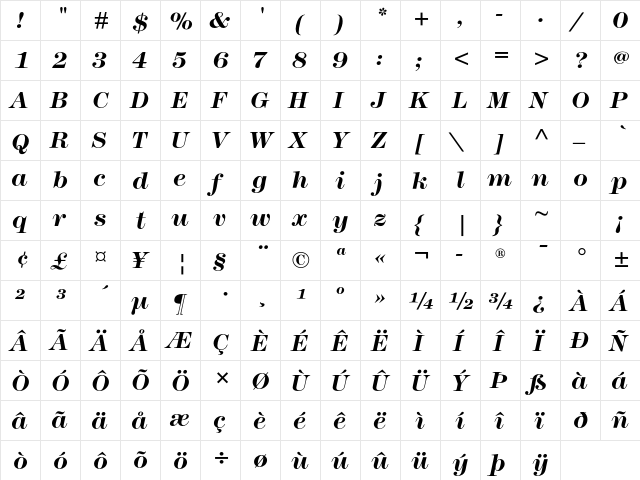
Modern TwoSxtn ITC Std BoldIta
| Foundry | International Typeface Corporation |
| Designer | Edward Benguiat |
Design Context for Modern TwoSxtn ITC Std Typeface
Modern TwoSxtn ITC Std is a composed and adaptable typeface that performs quietly and consistently across a wide range of design contexts. The heavy weight commands attention and anchors typographic hierarchies.